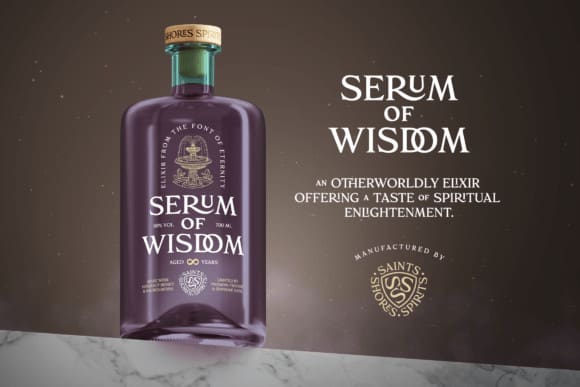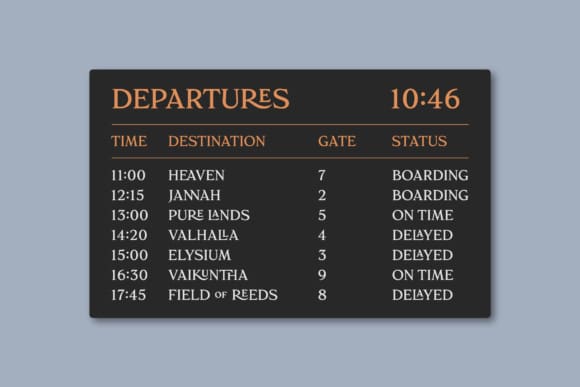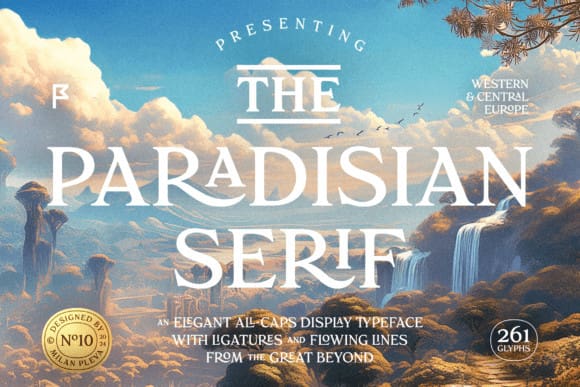
Paradisian Font
Paradisian Font is an all-caps display font with elegant and well-balanced curves, perfect for logos, headlines, magazines, or even longer texts. It includes selected ligatures for an enhanced aesthetic appeal. This typeface combines timeless sophistication with contemporary design, making it ideal for a wide range of creative projects. Elevate your typography with the grace and beauty of Paradisian Serif.